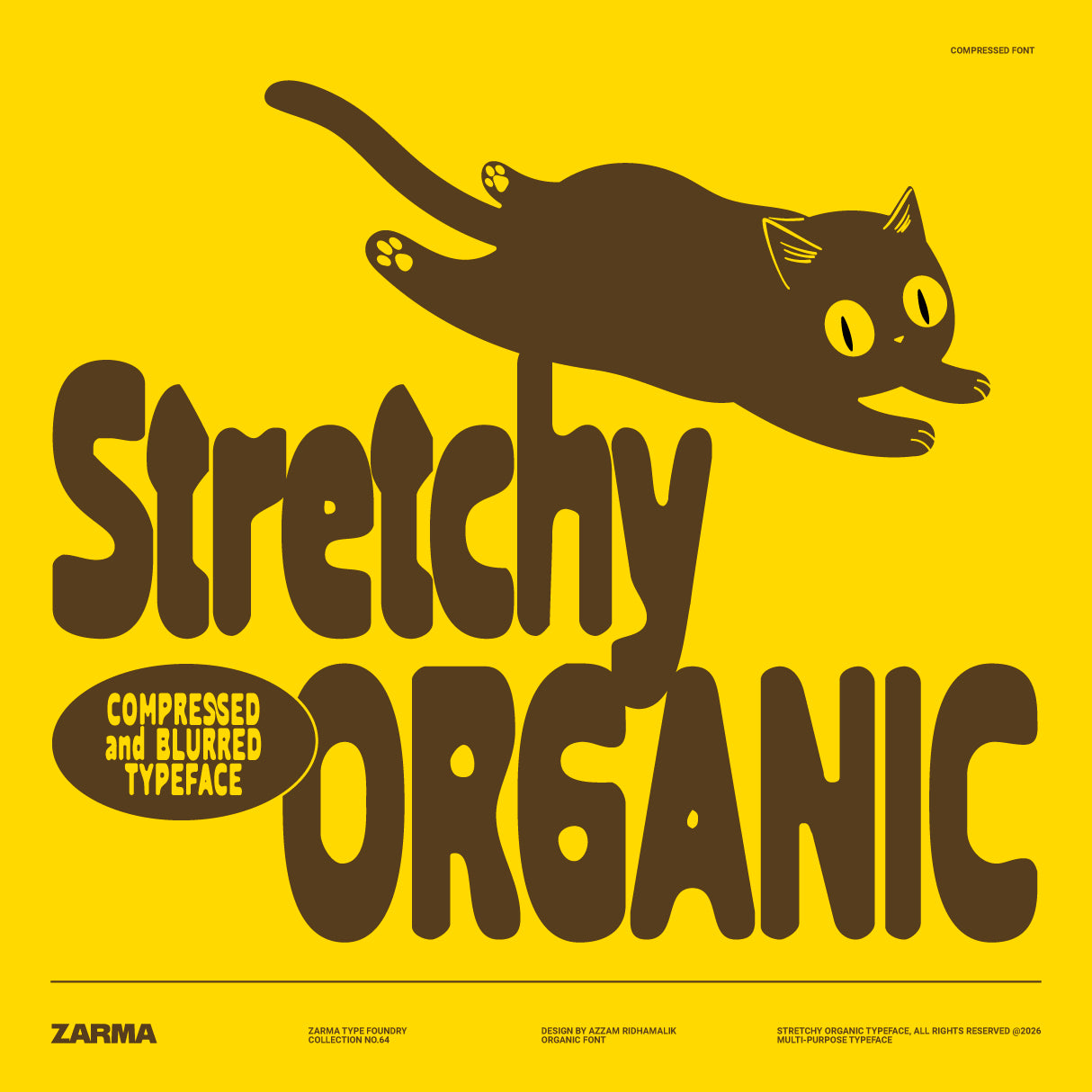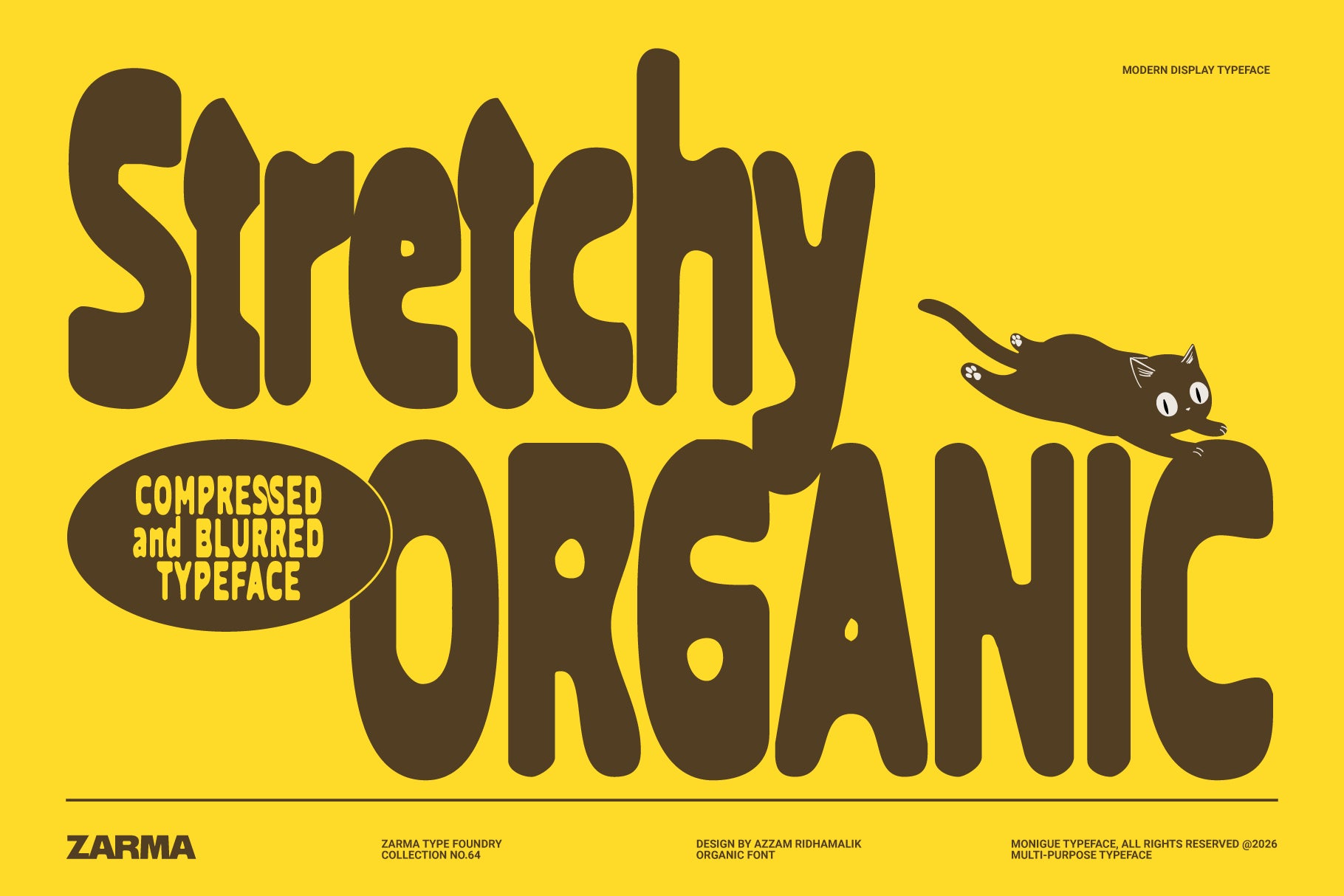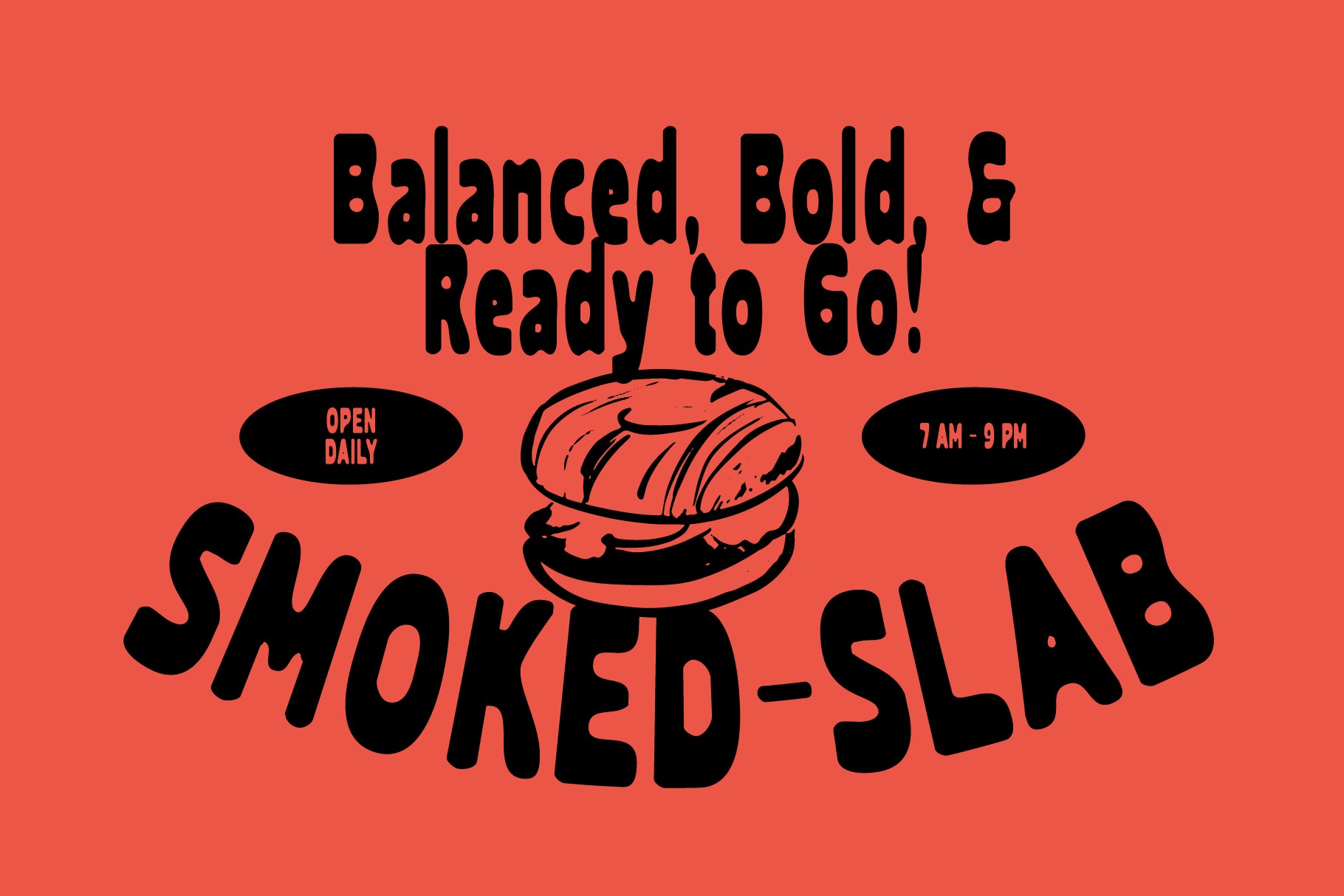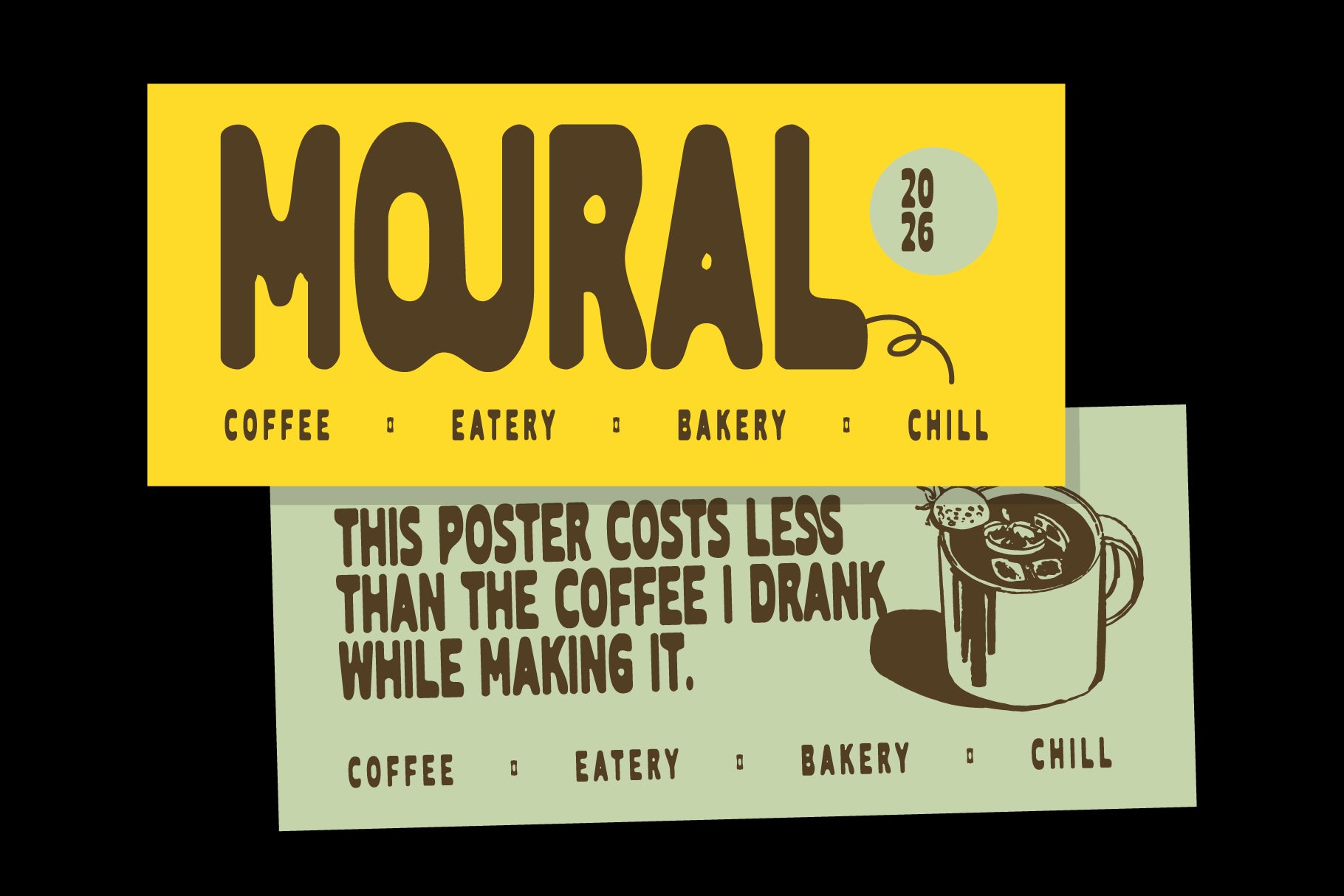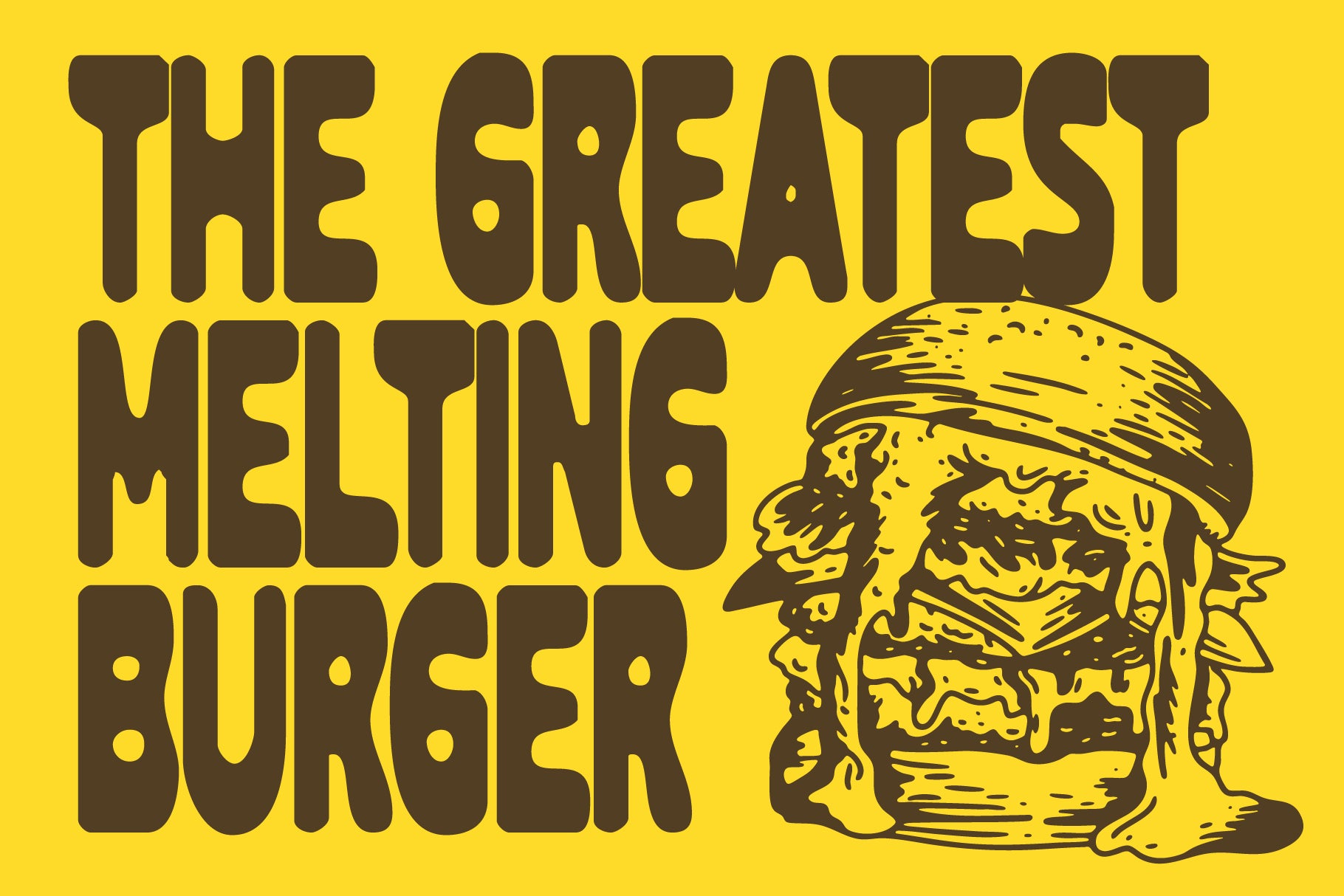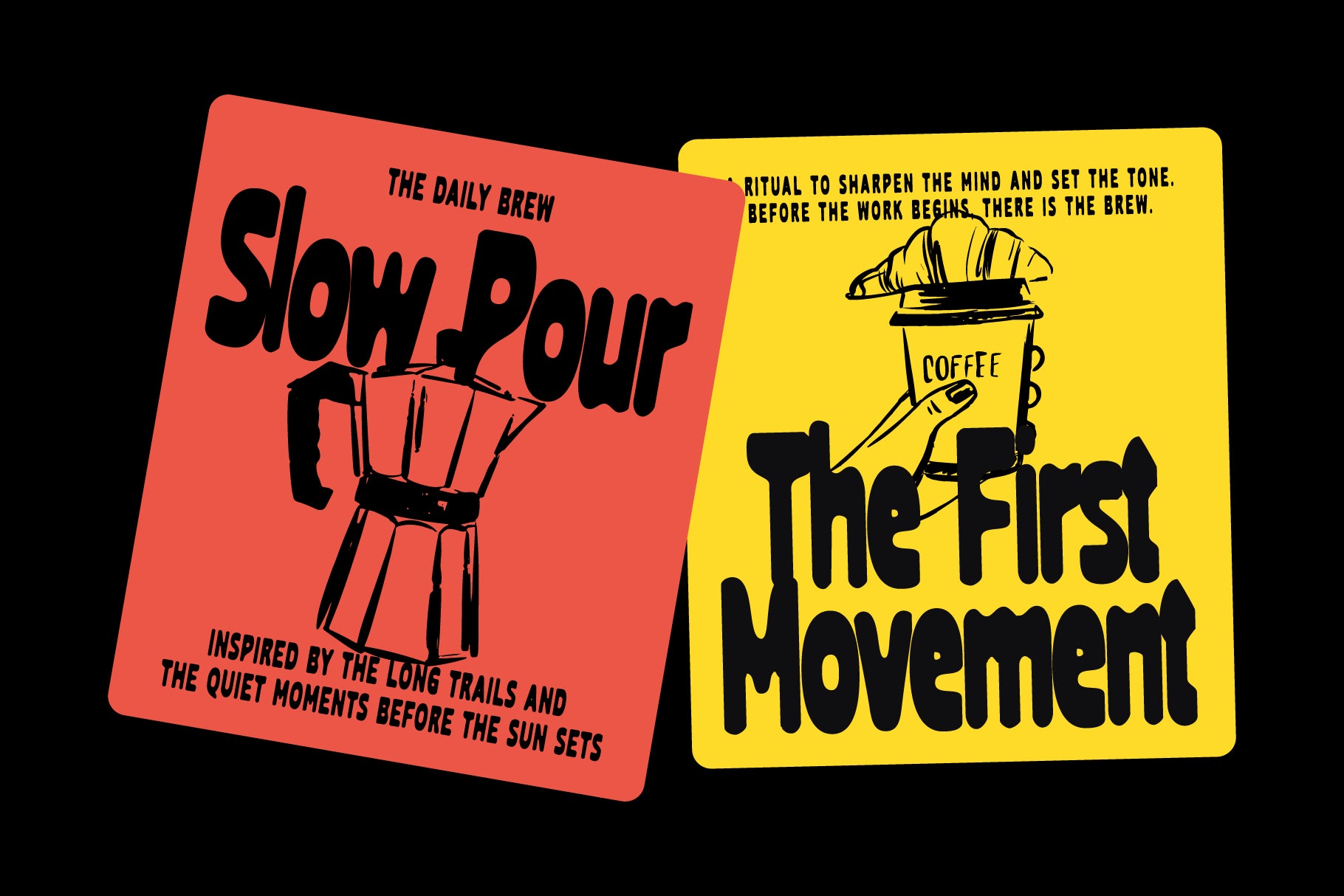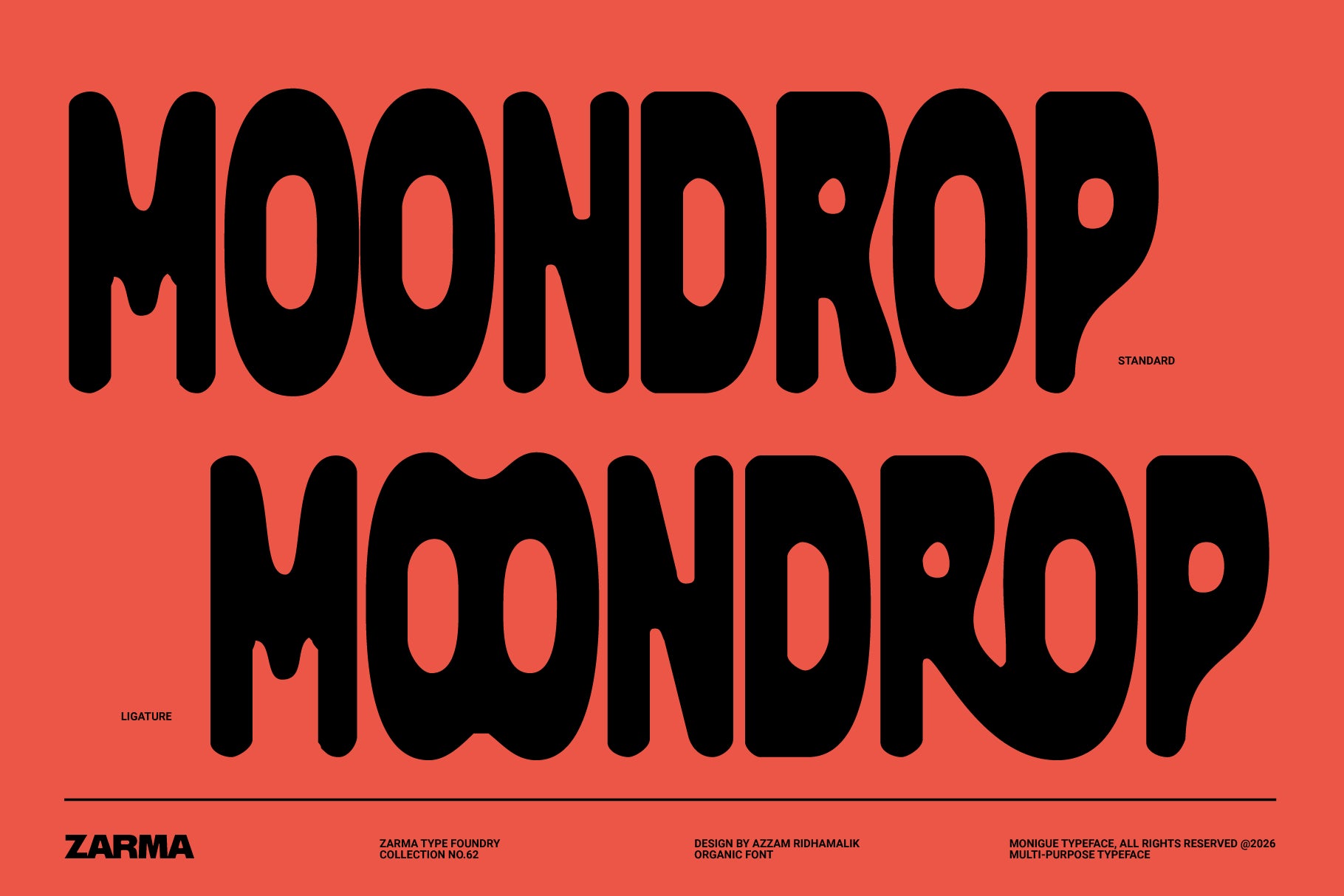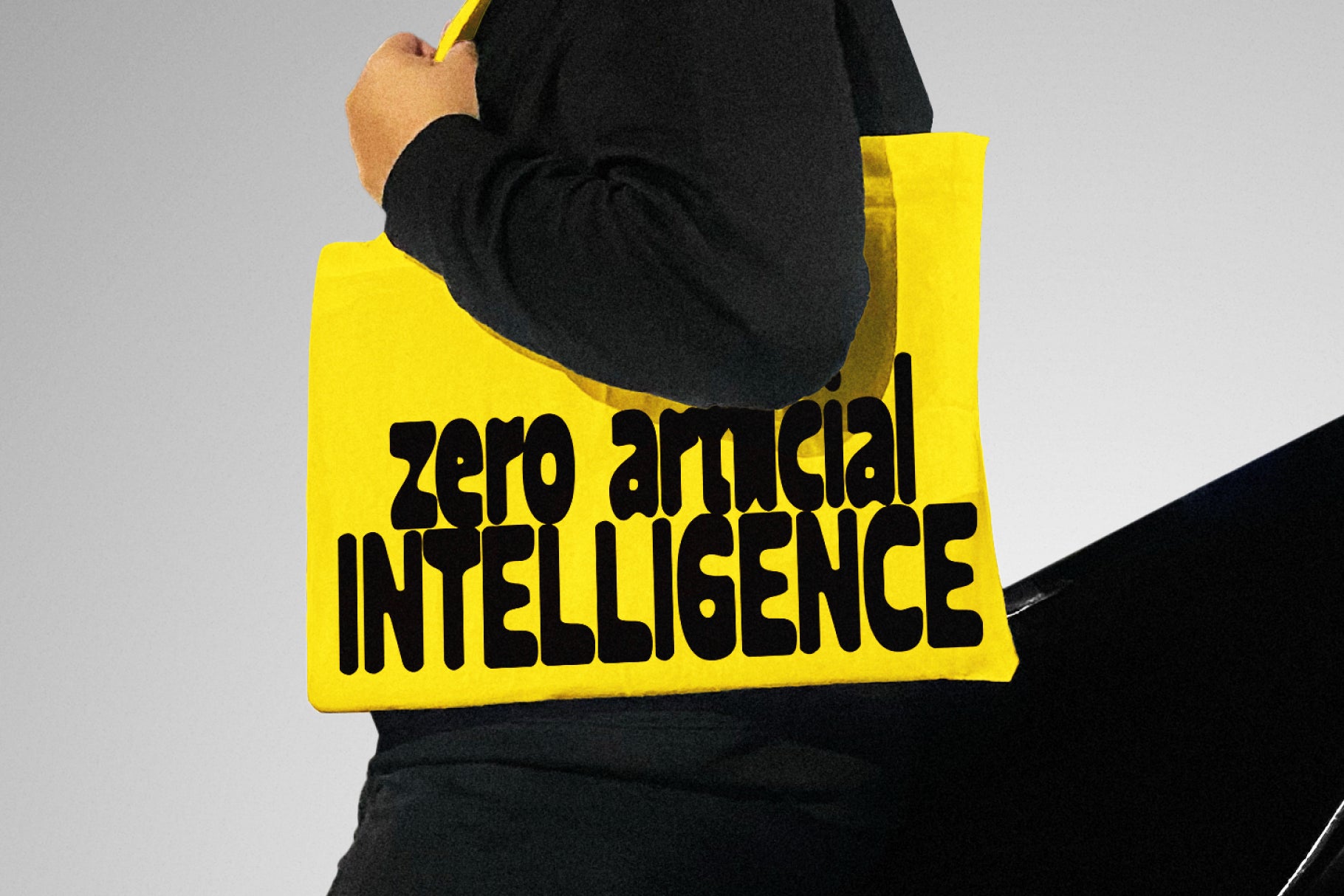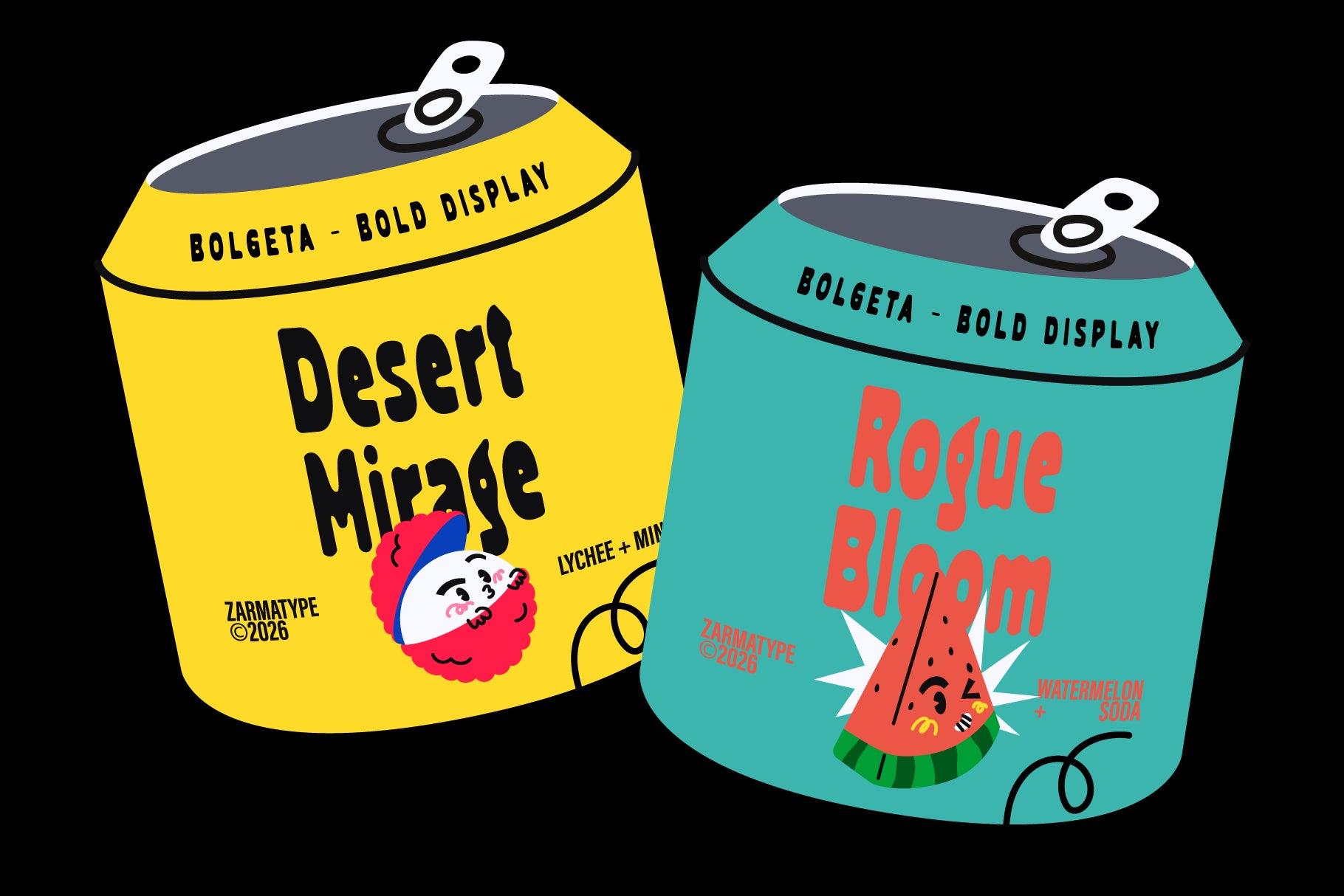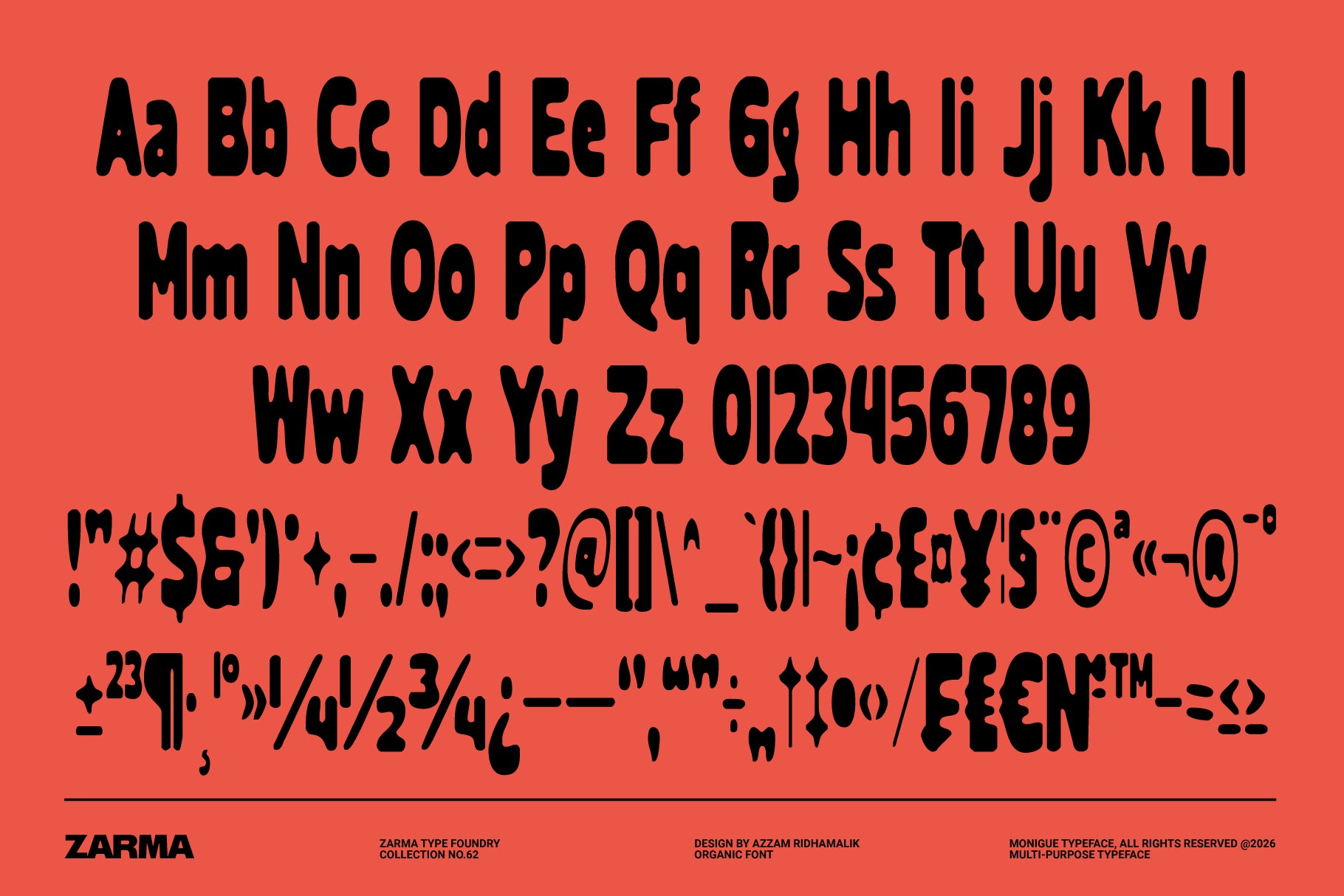
Stretchy Organic Font
Stretchy Organic is a bold Rough Compressed Font created for designers who want authentic texture without relying on manual effects. Blending organic imperfections with compressed proportions, it captures the raw character of hand-stamped letterpress, weathered street posters, and underground zine culture in a striking display typeface. Its rough edges, subtle blur, and stretched vertical form create a bold visual presence that feels tactile and expressive, making it perfect for streetwear branding, food and beverage packaging, music event posters, editorial headlines, indie brand identities, merchandise, logo lettering, and typography-driven campaigns that demand attention.
Built for creative freedom, Stretchy Organic includes uppercase and lowercase characters, numbers, punctuation, ligatures, stylistic alternates, Multilingual Support, and PUA Encoded Characters for effortless access to alternate glyphs. Whether used at massive scale for impactful headlines or tightly stacked for bold editorial layouts, Stretchy Organic delivers the unmistakable look of handcrafted print with the convenience of a ready-to-use digital font, giving every design a raw, confident, and unmistakably organic voice.
Stretchy Organic is a bold Rough Compressed Font designed for those seeking authentic texture without manual effects. It features uppercase and lowercase characters, numbers, punctuation, ligatures, stylistic alternates, Multilingual Support, and PUA Encoded Characters, offering a tactile and expressive display typeface with a raw, handcrafted appearance.